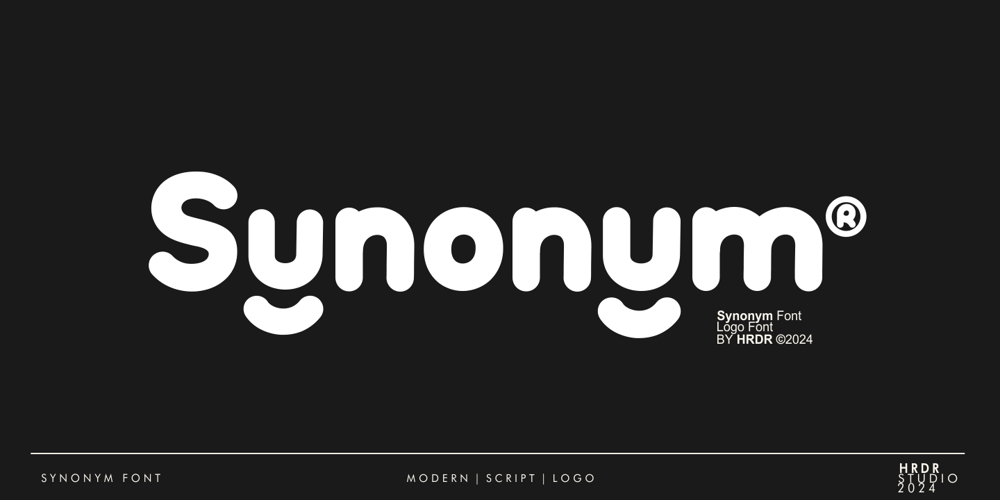
Synonym Font Family was designed by Dede Mulyadi and published by HRDR. Synonym contains 2 styles and family package options. Synonym is a special font for your logo & branding.Every character is designed for a good logo, so not suitable for a long text. Simple, this typeface design gives a clean and elegant . Most notably, the lowercase ‘g’ and ‘y’ make it recognizable for your branding applications, and there are also ligatures to help give a little different presentation when needed.Synonym is a perfectly choice for any creative endeavor, chic, lifestyle design such as logos, advertisements, stationery, branding project, display and magazine, invitation, corporate brand, product design, label, logo, business project and many other project with elegant touch.